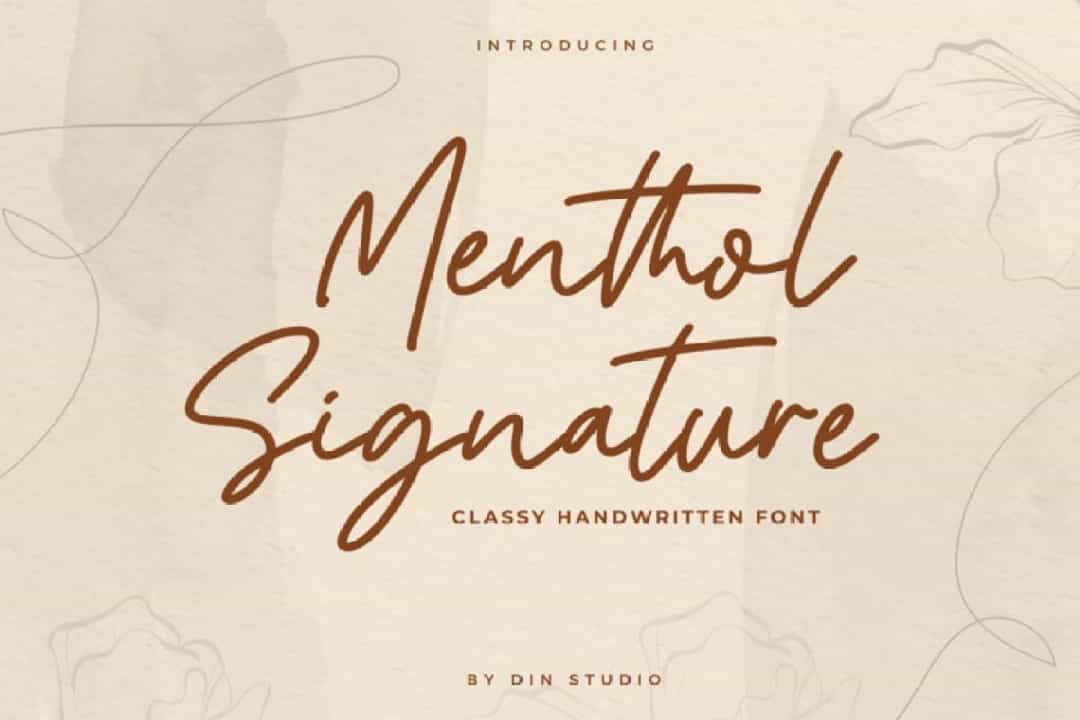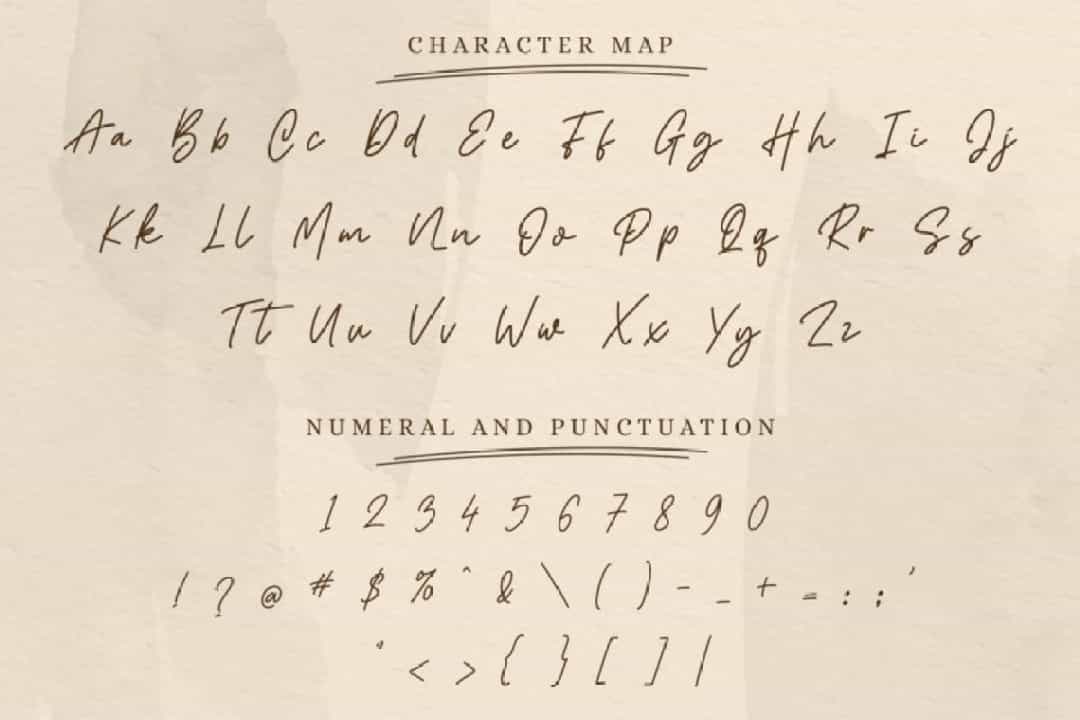
Menthol is a stylish monoline font family. Great for company logos, each letter of this font is well-defined and looks impressive compared to the other letters. Also, it can be noted that this font is designed for headlines and to be used as a separate font that requires differentiation.